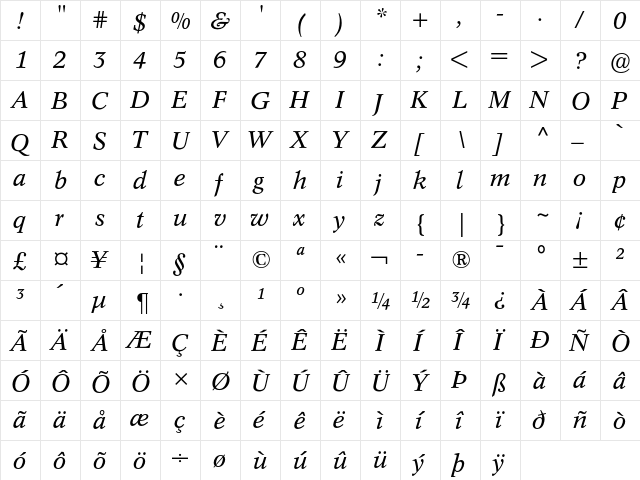
Concorde BE Italic
Design Context for Concorde BE Typeface
Concorde BE is a composed and adaptable typeface that performs quietly and consistently across a wide range of design contexts. Its italic angle brings a sense of urgency and motion to the letterforms.
Pro Tip: Use Concorde BE for emphasis, pull quotes, and subheadings where its slanted energy can add rhythm to the layout.